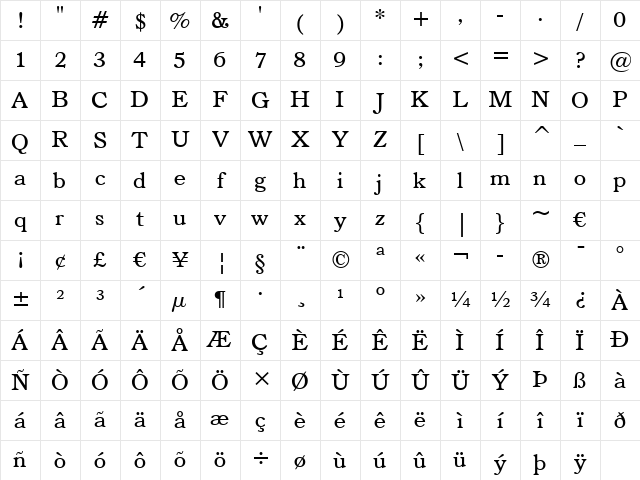
Bookman BT Roman
Bookman BT Family
Bookman BT Roman
Design Context for Bookman BT
Bookman BT is a composed and adaptable typeface that performs quietly and consistently across a wide range of design contexts.
Pro Tip: Use Bookman BT in both headline and body roles to test its range before committing to a single application.